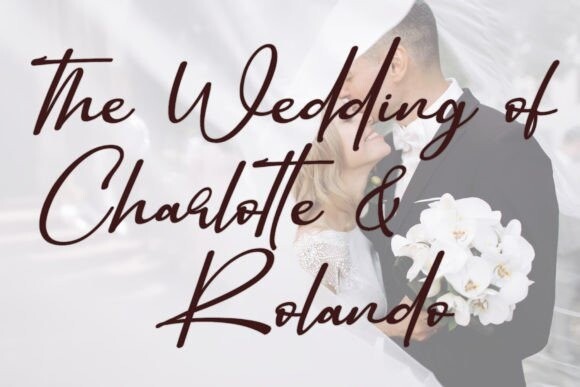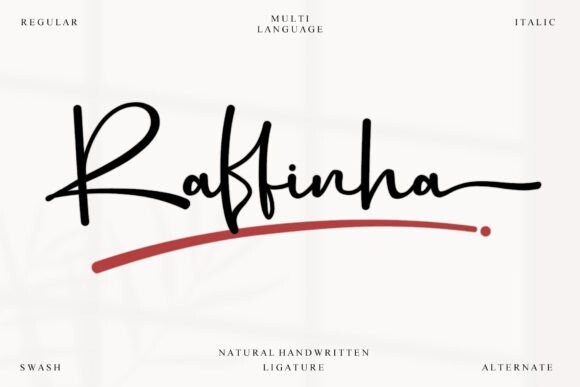
Raffinha Font
Raffinha Font – your perfect choice for authenticity and raw artistry. A handcrafted font that closely reflects natural handwriting, Raffinha brings organic fluidity and unique expression to all your design needs. Whenever you seek a human touch or the spontaneous elegance of natural strokes, Raffinha is the companion font that guarantees to elevate your designs. Ideal for logos, invitations, or any artwork where personality and individualism matter. Embrace the distinct charm of Raffinha, and let the rhythm of your visual storytelling come alive.